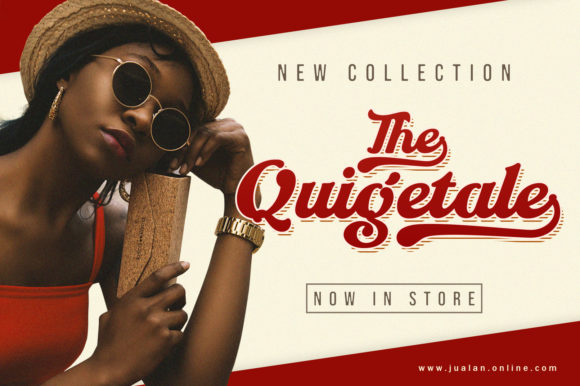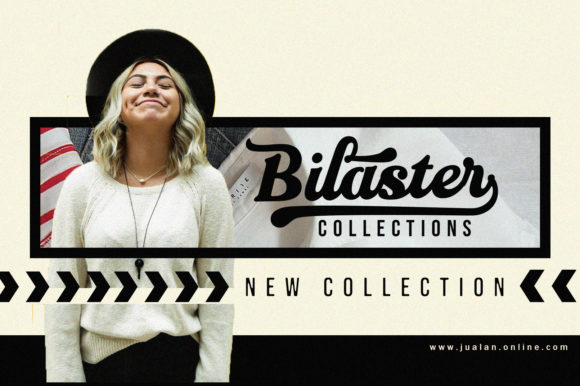
The Blagious Script Font
db-ku.com - Script & Handwritten -- The Blagious is based on a hand lettering project from 2017. It was inspired from the famous retro typography designs in late 60’s until 80’s.